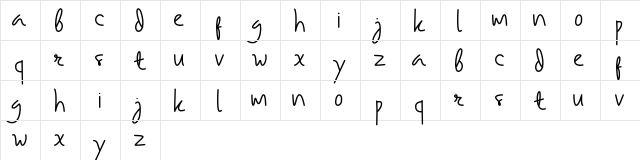
samarasa regular
Design Context for samarasa Typeface
samarasa is a composed and adaptable typeface that performs quietly and consistently across a wide range of design contexts.